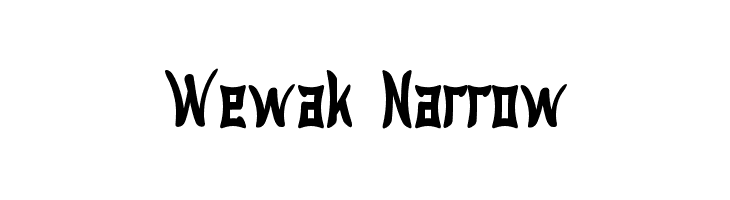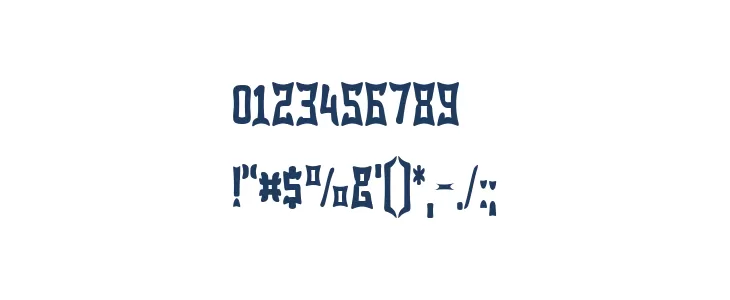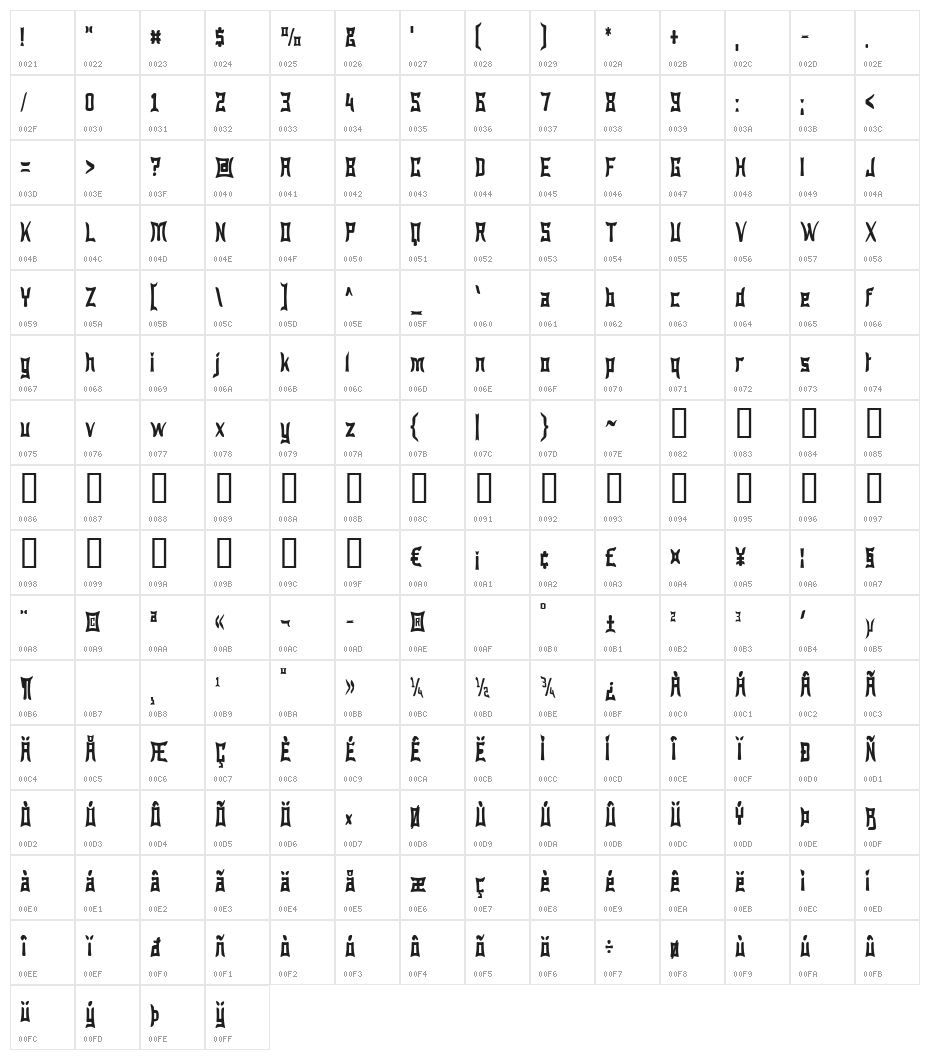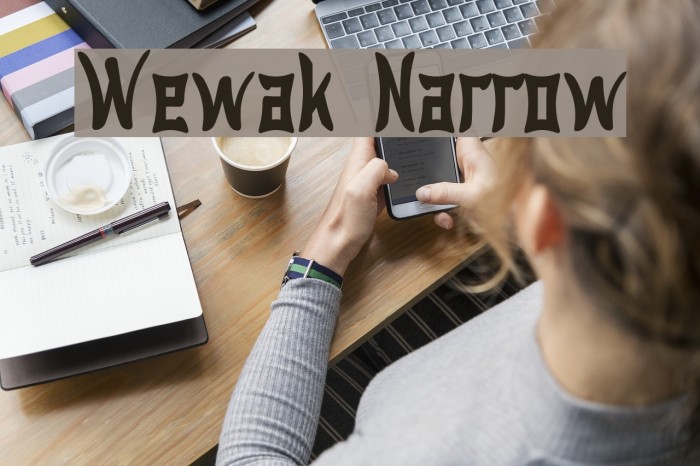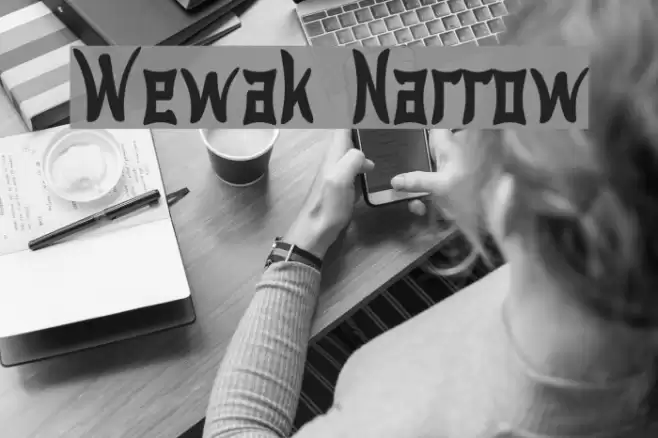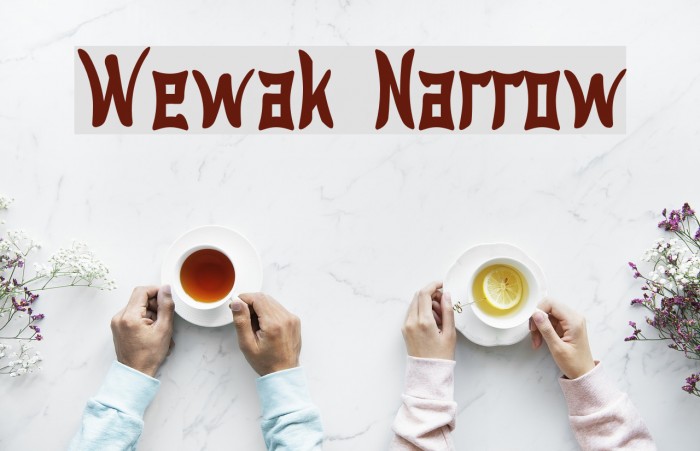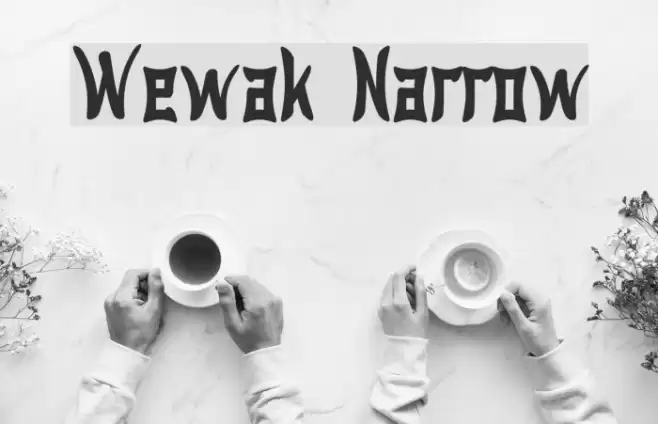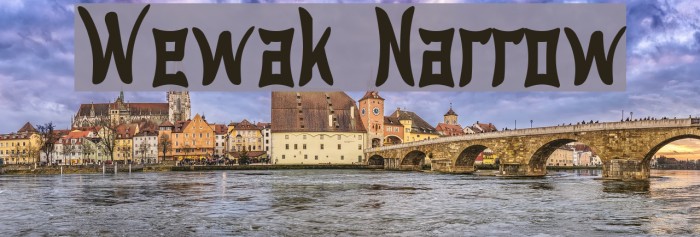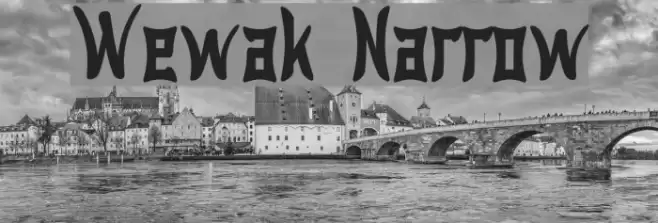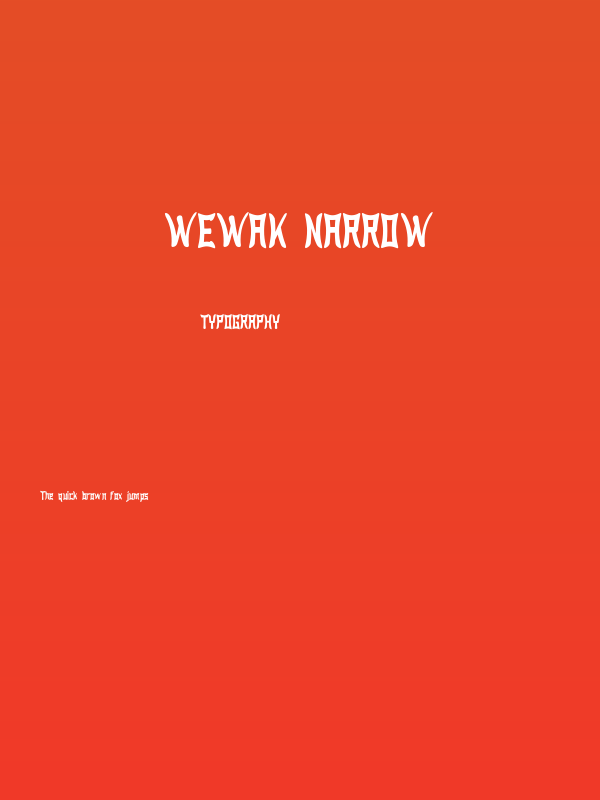
Wewak Narrow Font
Wewak Narrow Description
This font features a unique and bold design with a narrow structure, characterized by sharp, angular edges and a slightly condensed appearance. The uppercase letters exhibit a strong presence with their tall and slender forms, while the lowercase letters maintain a consistent style that complements the uppercase. The numbers and special characters follow the same aesthetic, ensuring a cohesive look across all elements. The font's distinct style makes it suitable for attention-grabbing designs, offering a modern yet slightly edgy feel.
| Overall Style | Modern, Edgy |
| Proposed Projects | Ideal for posters, logos, branding, and any project requiring a bold, distinctive typeface. |